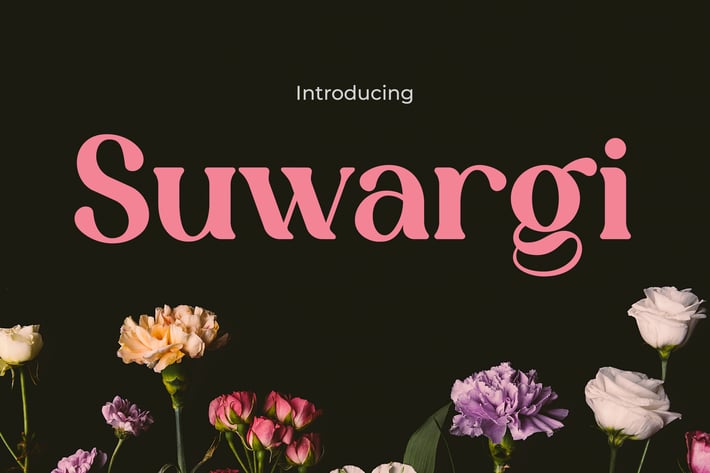
Suwargi: Elegance Modern Serif Font
SUWARGI
Suwargi is an elegant display font with high-contrast strokes, gentle curves, and a graceful rhythm—designed to evoke warmth, femininity, and editorial sophistication. Its refined form strikes a perfect balance between softness and structure, making it ideal for visual storytelling where emotional impact matters. With thin-to-thick transitions and a subtly expressive style, Suwargi feels equally at home in a fashion magazine or an artisanal product label.
Whether you’re designing product packaging for a handmade soap brand, creating a luxurious fashion lookbook, or styling romantic quotes for Instagram, Suwargi sets the tone with refined personality and upscale aesthetics. Its emotionally rich flow makes it perfect for lifestyle branding, beauty products, print advertising, or elegant digital content. Suwargi transforms typography into an experience—one that speaks gently yet powerfully to its audience.
Key Features
Why Creatives Love Suwargi :
- Elegant contrast: Harmonious thick and thin strokes for a refined, upscale feel
- Soft, expressive terminals: Adds emotional tone and sophistication
- Highly versatile: Ideal for editorial layouts, boutique branding, packaging, and wedding stationery
- Subtle drama: Commands attention without overpowering your design
Let Suwargi bring softness, elegance, and emotional charm to your next creation. From boutique packaging to poetic Instagram posts, Suwargi gives your message a voice that feels intentional, graceful, and beautifully distinctive. Make your design feel like a luxury today.